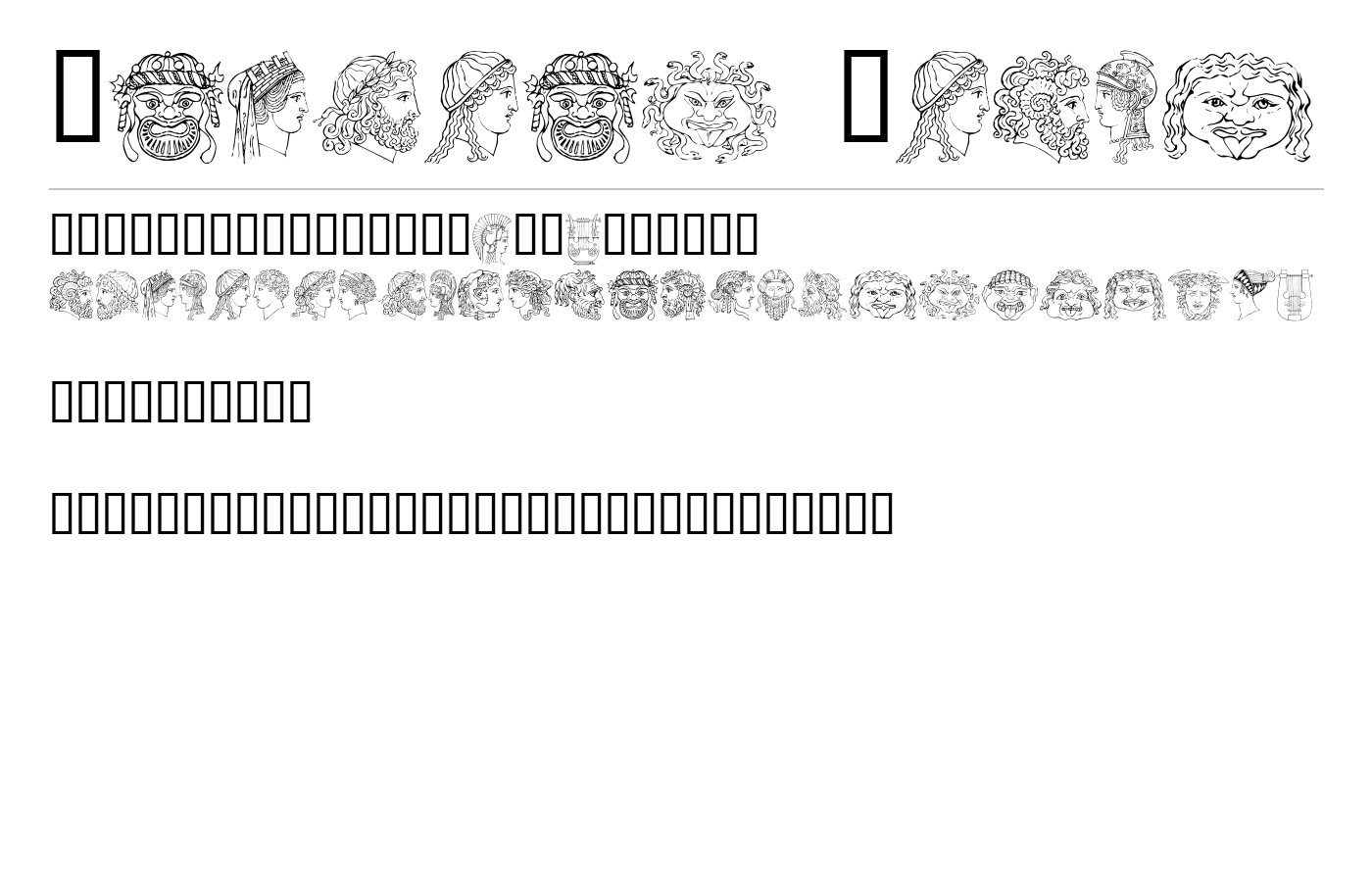
Ancient Heads Font is a decorative display font featuring finely detailed, hand-drawn illustrations of classical heads inspired by ancient art and mythology. This intricate and artistic font conveys a historic and elegant feel, making it ideal for use in projects that require a vintage or classical touch, such as book covers, editorial designs, and themed branding. Its highly ornamental nature suits large-scale headings and decorative accents rather than body text, adding a unique and cultured flair to any design.
Ancient Heads Font
About Ancient Heads Font
| Font family | Ancient Heads Font |